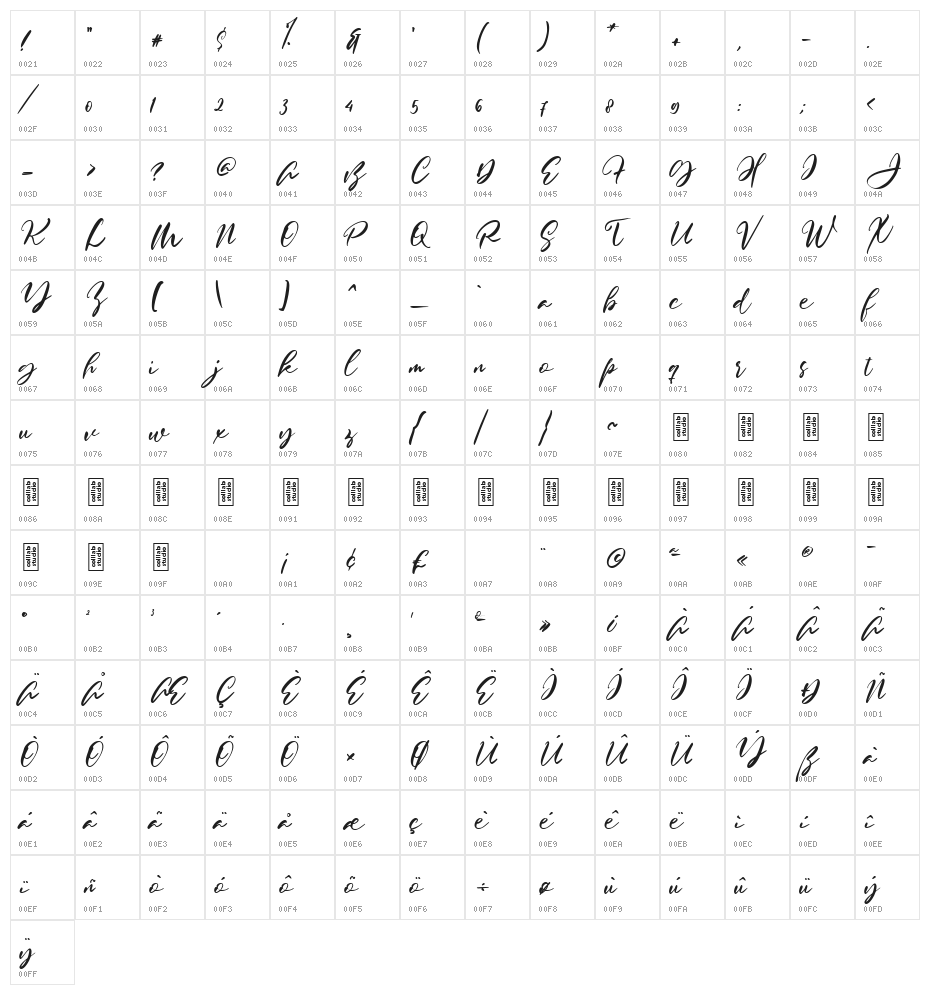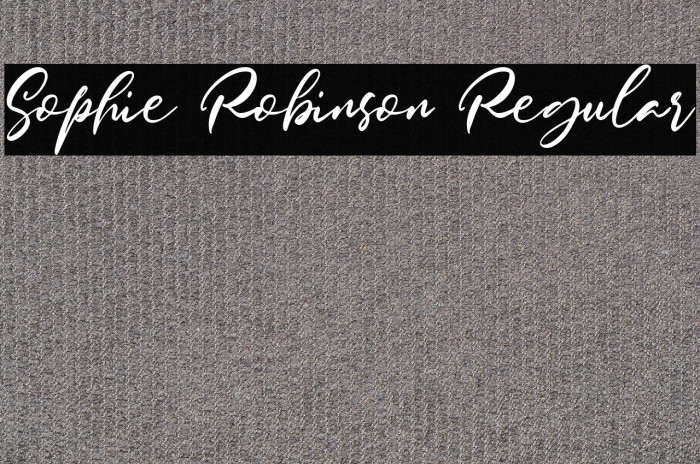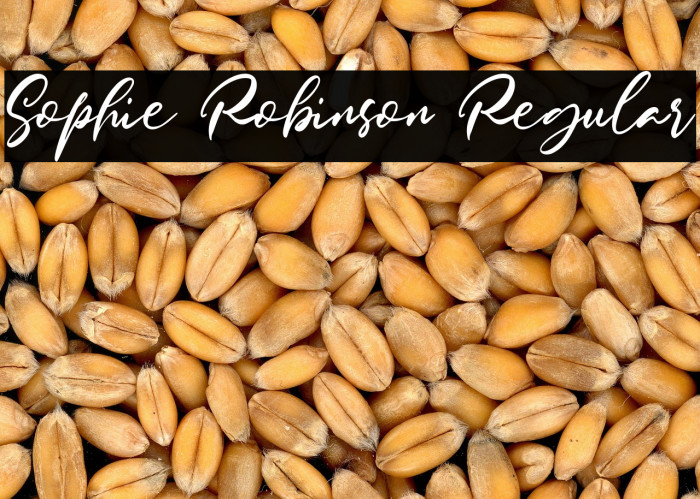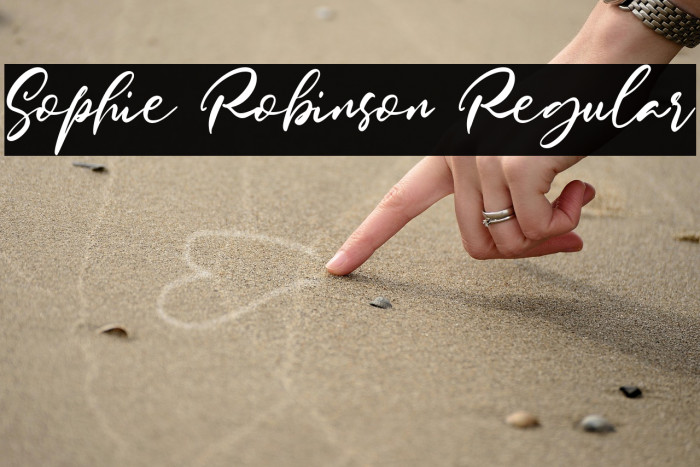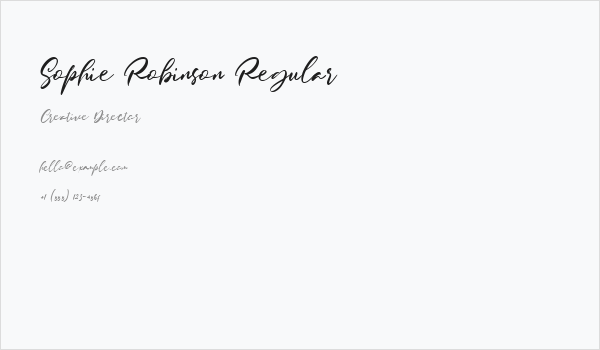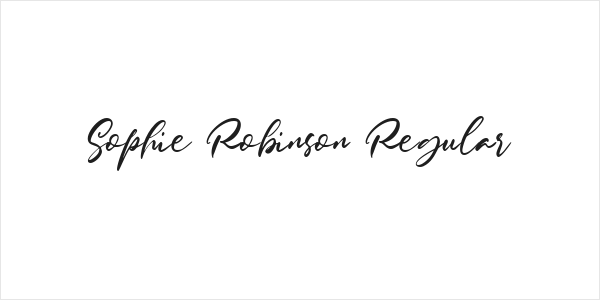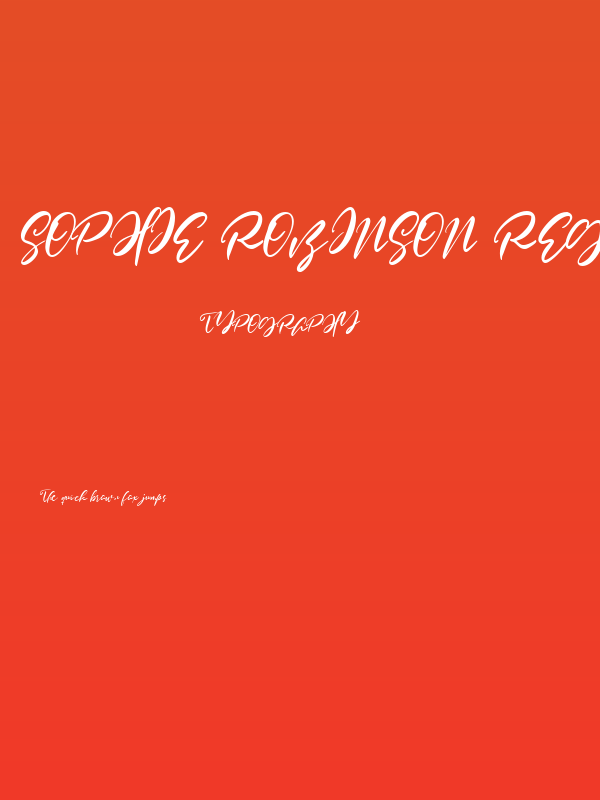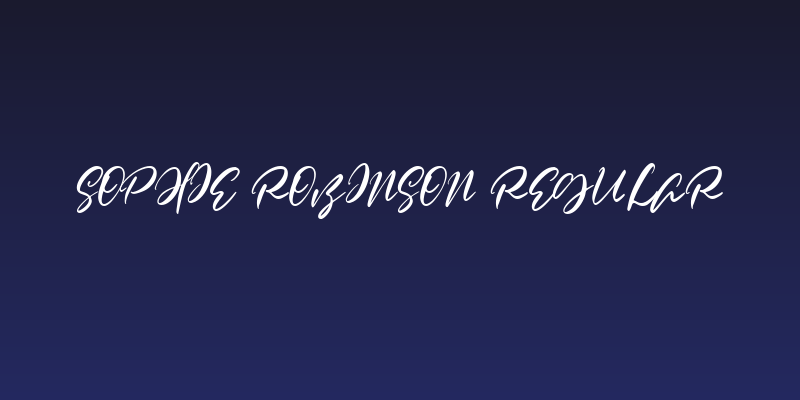
Sophie Robinson Regular Font
Sophie Robinson Regular Description
This font exudes a lively and elegant script style, characterized by its fluid, cursive strokes and a sense of movement. The letters are interconnected, creating a seamless flow that mimics natural handwriting. The uppercase letters are bold and expressive, while the lowercase letters maintain a consistent rhythm. The numerals and special characters are crafted with the same attention to detail, ensuring a cohesive look across all elements. This font is perfect for adding a personal touch to any project, with its artistic flair and sophisticated appearance.